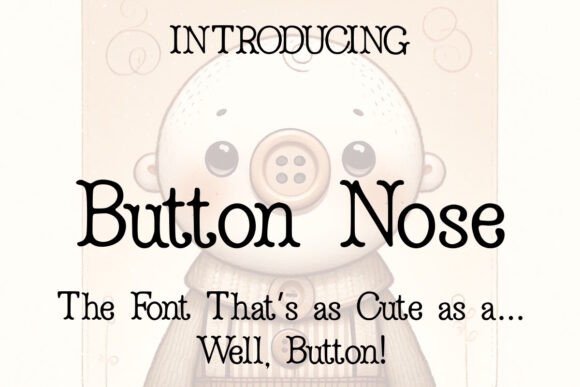
Introducing Button Nose Font: The Ultimate Charm for Your Designs
Are you looking for a font that can add a touch of sweetness and whimsy to your designs? Look no further than Button Nose Font, a delicate and handmade typeface that is sure to capture the hearts of designers and audiences alike. With its rounded edges and subtle charm, Button Nose is the perfect choice for projects that require a soft and nostalgic feel.
The Characteristics of Button Nose Font
Button Nose Font is a unique and irresistibly sweet typeface that boasts a range of characteristics that set it apart from other fonts. Some of its key features include:
- Rounded edges: Button Nose has smooth, rounded edges that give it a soft and gentle appearance.
- Handmade feel: This font has a delicate, handmade quality that makes it perfect for designs that require a personal touch.
- Subtle whimsy: Button Nose has a playful, whimsical feel that adds a touch of charm to any project.
- Nostalgic vibe: This font has a classic, vintage feel that is sure to evoke memories of a bygone era.
The Benefits of Using Button Nose Font
So why should you choose Button Nose Font for your designs? Here are just a few benefits of using this charming typeface:
- Adds a touch of charm: Button Nose is sure to add a sprinkle of charm to any project, making it perfect for designs that require a personal touch.
- Evokes a sense of nostalgia: This font’s vintage vibe is sure to evoke memories of a bygone era, making it perfect for designs that require a classic feel.
- Perfect for a range of projects: Button Nose is versatile enough to be used in a range of projects, from cozy and cute designs to delightfully vintage ones.
- Easy to read: Despite its delicate appearance, Button Nose is easy to read, making it perfect for designs that require a clear and legible font.
How to Use Button Nose Font in Your Designs
So how can you use Button Nose Font in your designs? Here are a few ideas to get you started:
- Pair it with other fonts: Button Nose pairs well with other fonts, making it easy to create unique and interesting typography combinations.
- Use it for headings and titles: This font is perfect for headings and titles, where its charm and whimsy can really shine.
- Add it to your branding: Button Nose is a great choice for branding, where its unique and memorable appearance can help to set your brand apart.
- Use it in digital and print designs: This font is versatile enough to be used in both digital and print designs, making it a great choice for a range of projects.
The Design Process Behind Button Nose Font
So how was Button Nose Font created? The design process behind this font involved a range of steps, from initial concept to final product.
The designer of Button Nose Font wanted to create a typeface that was both sweet and charming, with a delicate handmade feel. To achieve this, they used a range of design tools and techniques, including:
- Hand-drawn lettering: The designer of Button Nose Font used hand-drawn lettering to create the initial characters for the font.
- Digital editing: The designer then used digital editing tools to refine the characters and create a cohesive font.
- Testing and refinement: The font was tested and refined to ensure that it was easy to read and worked well in a range of contexts.
In conclusion, Button Nose Font is a unique and charming typeface that is sure to add a touch of sweetness and whimsy to any design. With its rounded edges, handmade feel, and subtle charm, this font is perfect for projects that require a soft and nostalgic feel.
Whether you’re crafting something cozy, cute, or delightfully vintage, Button Nose Font is the perfect choice. So why not give it a try and see how it can add a sprinkle of charm to your designs?
- What is Button Nose Font? Button Nose Font is a sweet and charming typeface with a delicate handmade feel.
- What are the key features of Button Nose Font? Button Nose Font has rounded edges, a handmade feel, and a subtle whimsy.
- What types of projects is Button Nose Font suitable for? Button Nose Font is perfect for projects that require a soft and nostalgic feel, such as cozy, cute, or vintage designs.